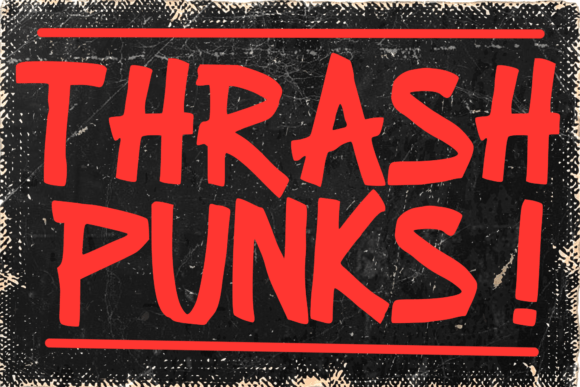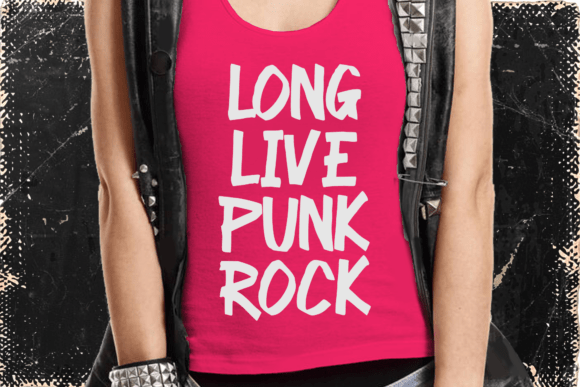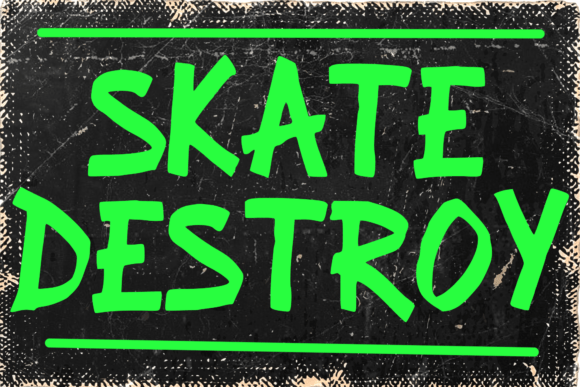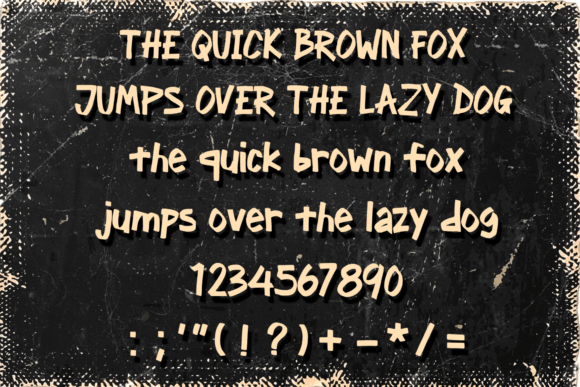
The Birth of Rebellion: Unleashing the Power of Anarchy Handwriting Font
Remember the thrill of creating your first DIY zine as a teenager, pouring your heart and soul into every handmade page and illustration? The rush of seeing your art come to life, the sense of freedom and rebellion that came with it? That’s the spirit of Anarchy Handwriting Font, a typeface that embodies the raw energy of punk rock and the street-style of skateboarding.
Born from the desire to create a bold and vibrant display font, Anarchy Handwriting Font is more than just a typeface – it’s a statement of defiance. With its unique style and edgy charm, it’s the perfect tool for designers looking to add an unforgettable touch to their projects. From movie posters to music covers, stickers to clothing visuals, Anarchy Handwriting Font will inject your designs with a spirit of audacious anarchy that’s impossible to ignore.
Anarchy Handwriting Font Key Features
- Unique Handwritten Style: The Anarchy Handwriting Font features a bold, expressive, and artistic handwritten style, perfect for adding a personal touch to your designs.
- Character Set: The Anarchy Handwriting Font includes a comprehensive character set, including uppercase and lowercase letters, numbers, punctuation marks, and special characters.
Anarchy Handwriting Font Review
Anarchy Handwriting Font is an interesting choice for those looking to add a personal touch to their design projects. Here are some of its notable features:
- ✨ Unique and expressive characters: The font features a wide range of letters, each with its own unique flair, making it perfect for those who want to add a bit of personality to their designs.
- ⚠️ Limited legibility: Some characters, especially those with complex connections, can be difficult to read, especially at smaller font sizes.
- ⚠️ Limited language support: The font primarily supports the Latin alphabet, which may not be ideal for projects that require support for other languages.
- ⚠️ Not suitable for body text: Due to its unique and expressive nature, the font may not be the best choice for large blocks of text, as it can be overwhelming and difficult to read.
Overall, I’d say Anarchy Handwriting Font is a great choice for those who want to add a touch of personality to their designs, but it’s not suitable for all projects. With some careful selection and placement, this font can be a real showstopper.
Tips for Getting the Most Out of Anarchy Handwriting Font
Use Anarchy Handwriting Font to create a distressed, vintage look. Experiment with different font sizes, colors, and styles to achieve the desired effect. Combine the font with other design elements, such as textures and graphics, to add depth and interest.
Anarchy Handwriting Font is ideal for creating invitations, posters, and social media graphics. It’s also suitable for use in branding and marketing materials, such as logos and business cards.